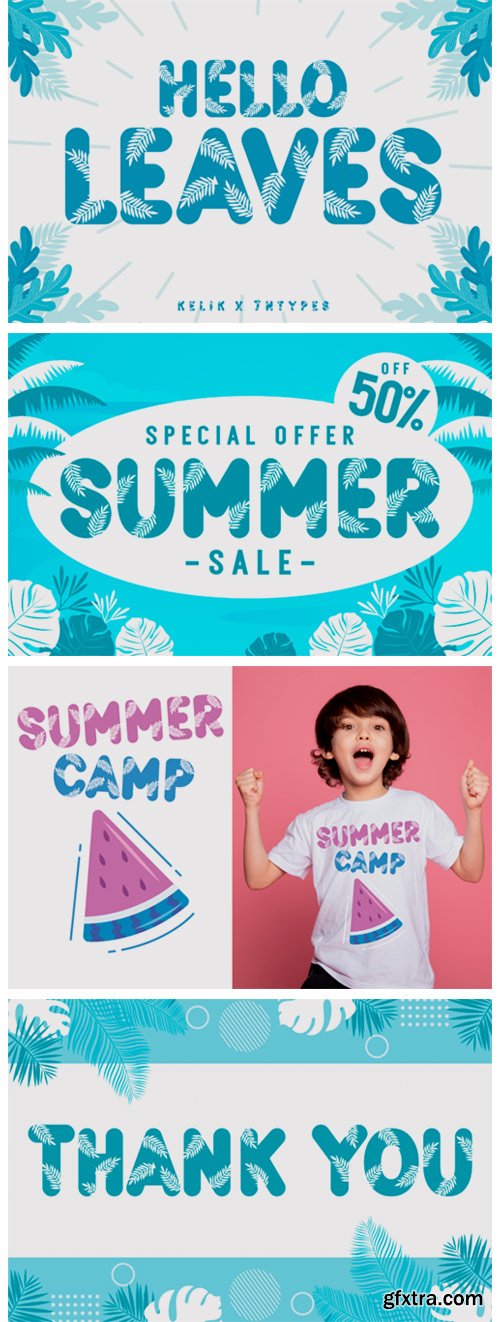
Hello Leaves Font
Hello Leaves embodies fun, quirkiness and authenticity. This enchanting display font will turn any creative idea into a true standout. Get creative with its unique playfulness, and use it to brighten up all your upcoming crafting projects!